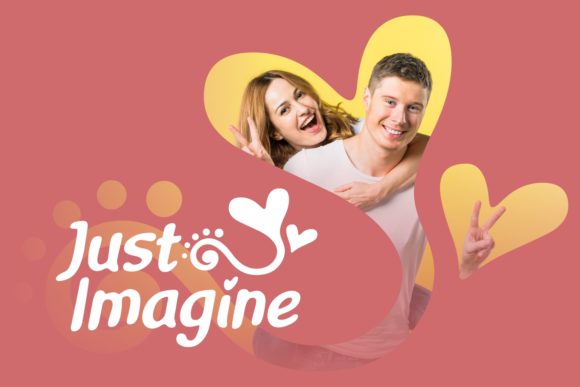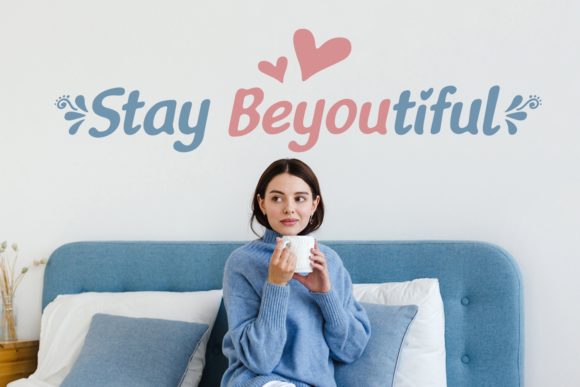
Introducing Delightious Font: A Playful and Versatile Script for Your Design Projects
Are you looking for a font that can add a touch of playfulness and elegance to your design projects? Look no further than Delightious Font! This beautiful script font is designed to be versatile and can be used in a wide range of applications, from greeting cards and headlines to school crafts and more. In this article, we’ll take a closer look at the features and benefits of Delightious Font and explore how it can elevate your designs.
A Font that’s Full of Delight
Delightious Font is a playful and charming script that is sure to bring a smile to your face. Its elegant and flowing lines make it perfect for designs that require a touch of sophistication and whimsy. Whether you’re creating a greeting card, a poster, or a social media graphic, Delightious Font is sure to add a touch of delight to your design.
Versatility at its Best
One of the best things about Delightious Font is its versatility. This font can be used in a wide range of applications, from formal to informal, and can be paired with a variety of other fonts to create a unique look. Here are some ideas for using Delightious Font:
- Greeting cards: Delightious Font is perfect for creating beautiful and personalized greeting cards for special occasions like birthdays, weddings, and holidays.
- Headlines: Use Delightious Font to create eye-catching headlines for your blog posts, articles, or social media graphics.
- School crafts: Delightious Font is a great choice for school crafts, such as making posters, banners, or other decorative items.
- Signage: Use Delightious Font to create eye-catching signs for your business, event, or organization.
Special Features to Enhance Your Designs
Delightious Font comes with a range of special features that can enhance your designs and make them more engaging. Some of these features include:
- Alternate glyphs: Delightious Font includes a range of alternate glyphs that you can use to add variety and interest to your designs.
- Ligatures: The font also includes ligatures, which are special character combinations that can be used to create a more natural and flowing look.
- Swashes: Delightious Font includes a range of swashes that you can use to add a touch of elegance and sophistication to your designs.
Why Choose Delightious Font?
So why should you choose Delightious Font for your design projects? Here are just a few reasons:
- Unique and playful: Delightious Font is a unique and playful script that can add a touch of personality to your designs.
- Versatile: The font is versatile and can be used in a wide range of applications, from formal to informal.
- High-quality: The font is high-quality and comes with a range of special features, including alternate glyphs and ligatures.
In conclusion, Delightious Font is a playful and versatile script that can add a touch of delight to your design projects. With its range of special features, including alternate glyphs and ligatures, and its PUA encoding, this font is easy to use and can be applied to a wide range of applications. Whether you’re a designer, crafter, or DIY enthusiast, Delightious Font is a great choice for any project that requires a touch of elegance and whimsy.